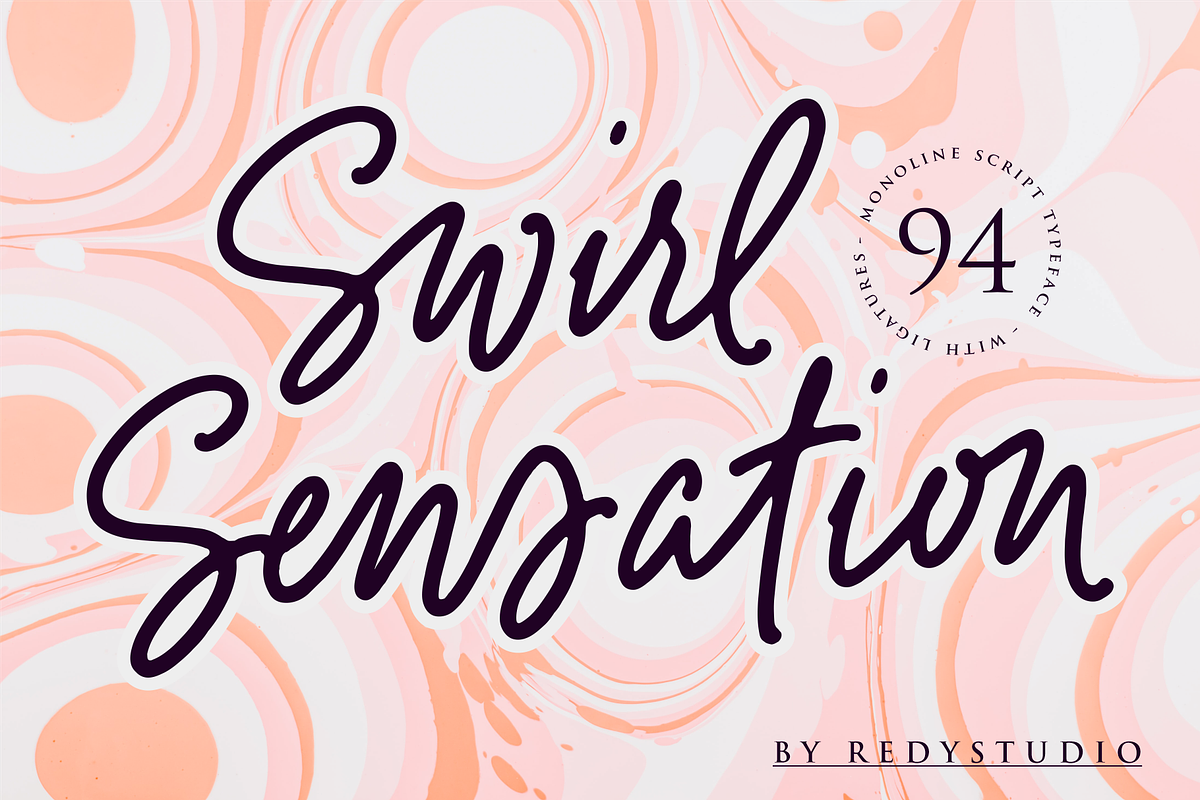
Add graceful movement and whimsical charm to your designs with Swirl Sensations Font Free Download — a beautifully flowing typeface that combines elegant curves with playful energy. Perfect for wedding invitations, fashion branding, artistic logos, greeting cards, and anything that needs a soft, stylish flair, this font brings personality to every letter.
Swirl Sensations is designed to captivate with its decorative strokes and sweeping swashes, giving your text a unique and eye-catching appearance. It includes uppercase and lowercase characters, numerals, punctuation, and multilingual support — making it versatile for both print and digital projects.
Let your typography twirl with creativity. Download Swirl Sensations today and bring a sense of elegance and motion to every design you create.